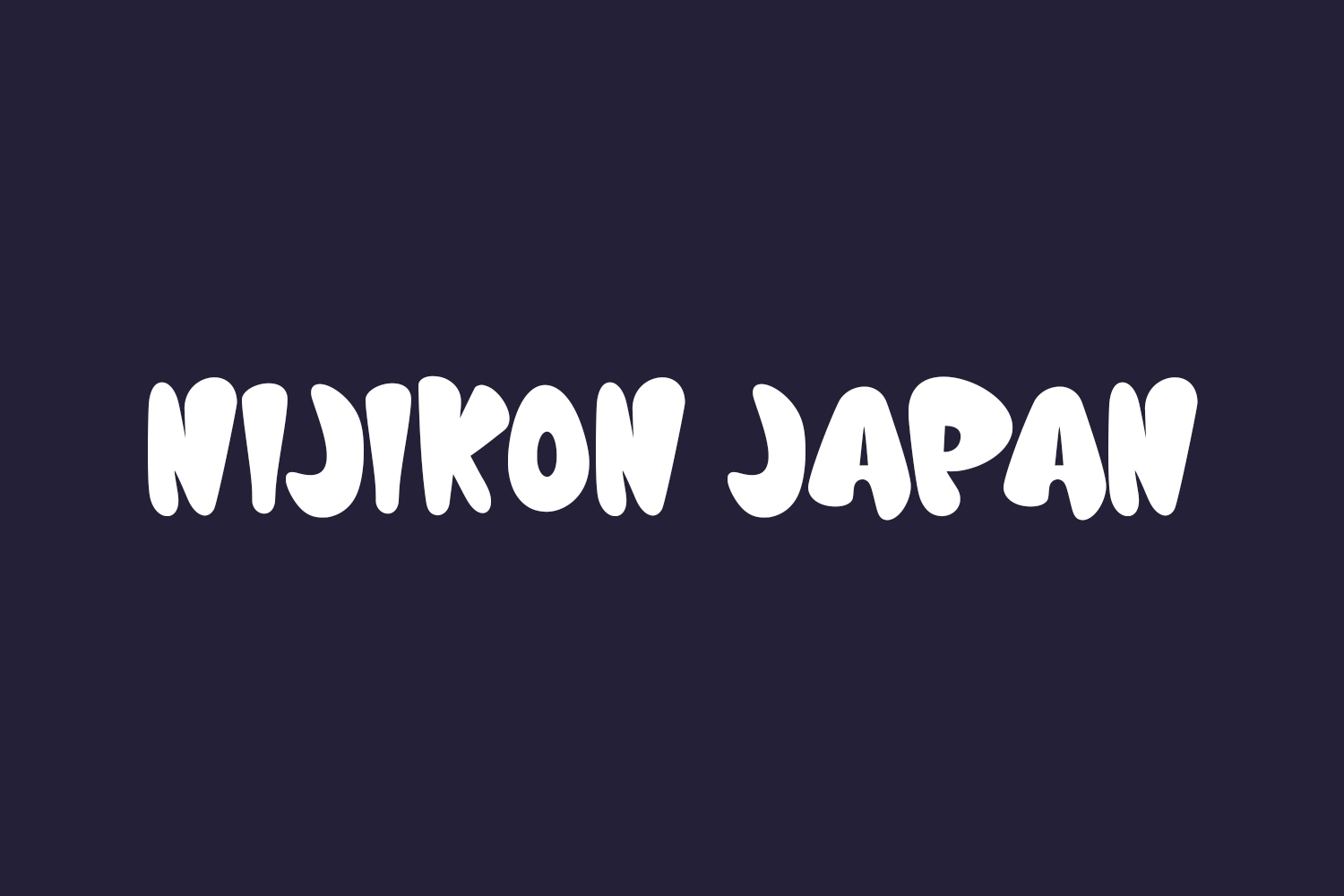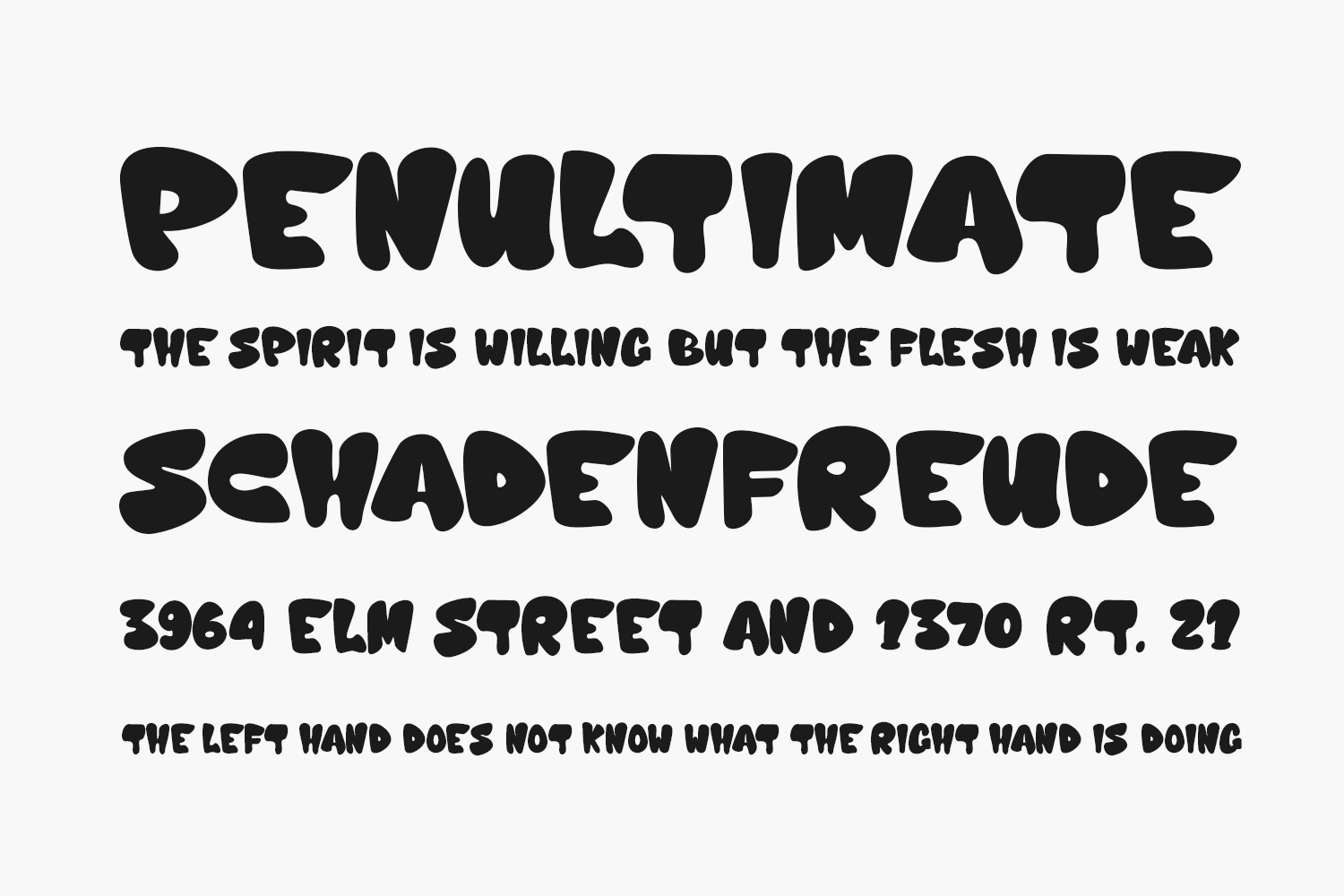
Embark on a creative journey with Nijikon Japan Free Font, an engaging display font exuding a cool and friendly vibe, inspired by the captivating world of Japanese cartoons. Let its playful and childlike charm inspire your designs, adding a touch of fun to your creative projects. Unleash the imaginative power of Nijikon Japan for a unique and spirited design experience. Download the font for free if you need it for personal use or purchase the full version for commercial use.